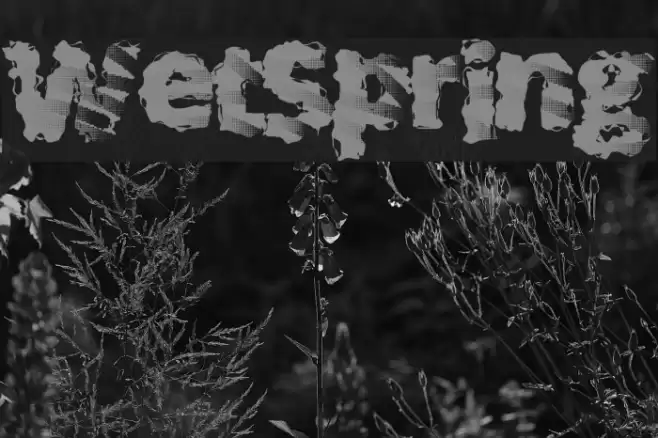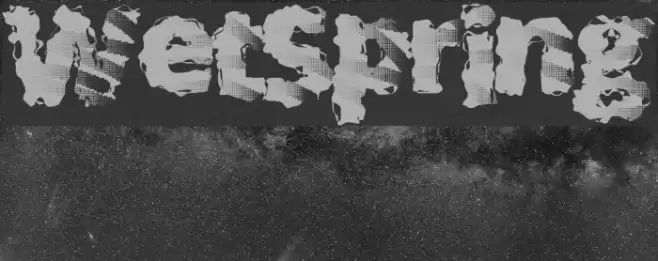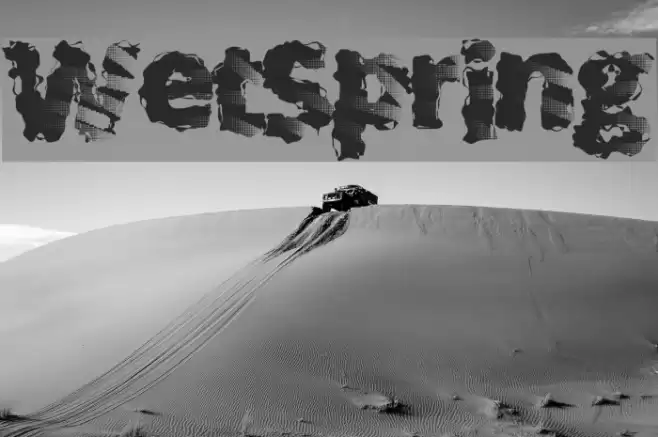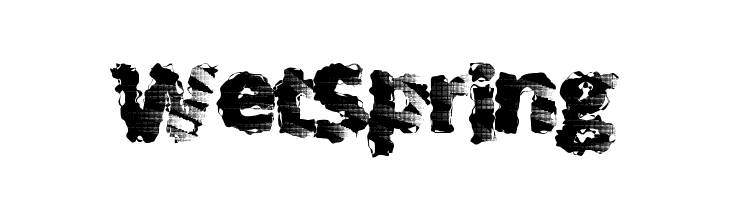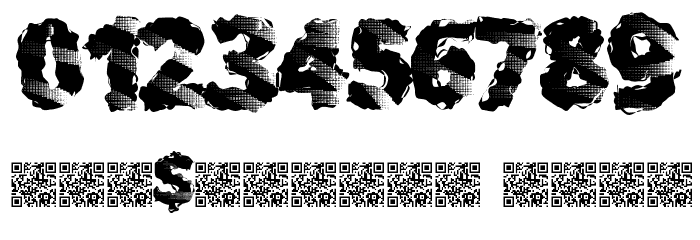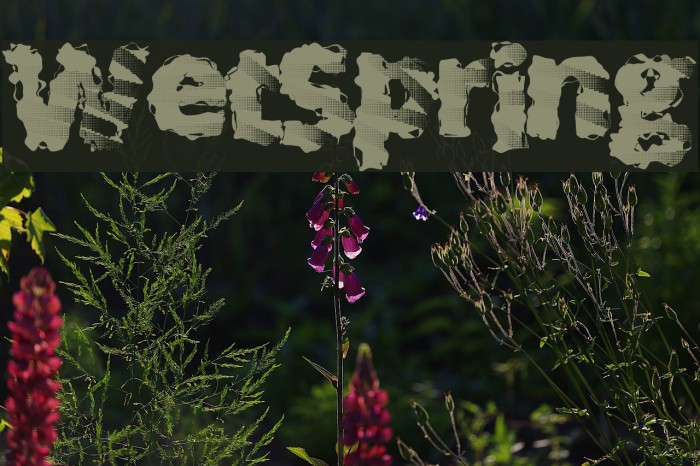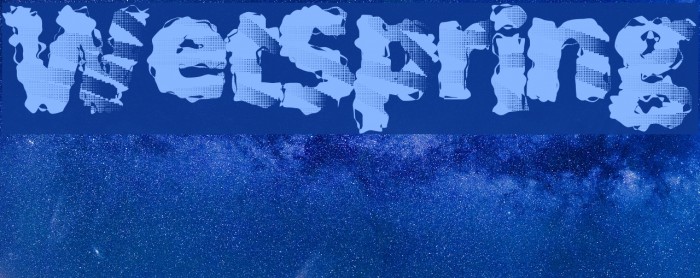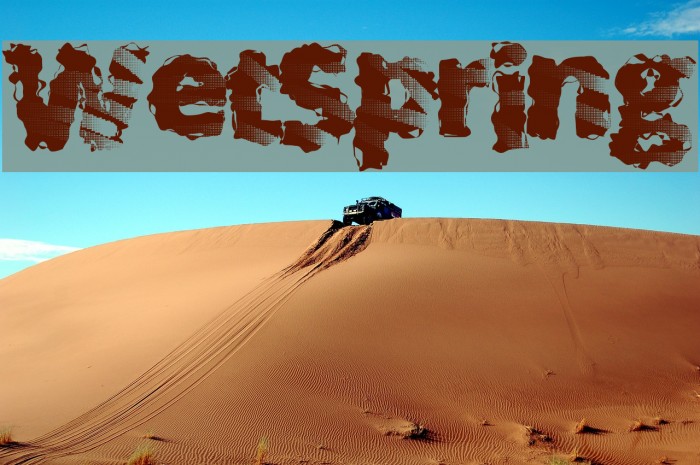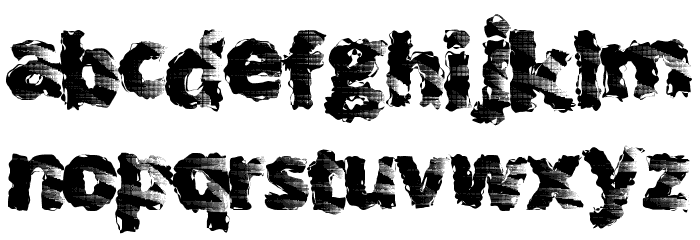
WetSpring Font
WetSpring Description
This font features a bold and textured appearance, reminiscent of wet paint or ink splatters. Each character is uniquely distressed, giving it an organic and dynamic feel. The uppercase and lowercase letters maintain a consistent style, with rough edges and varying thicknesses that create a sense of movement. The numbers and special characters follow the same design, ensuring a cohesive look throughout. This font's distinctive style makes it stand out, perfect for projects that require a bold statement.
A bold, textured font with an organic, distressed appearance from Distorted Eroded fonts.
- Proposed Projects: Ideal for artistic posters, album covers, graffiti-inspired designs, and creative branding projects.